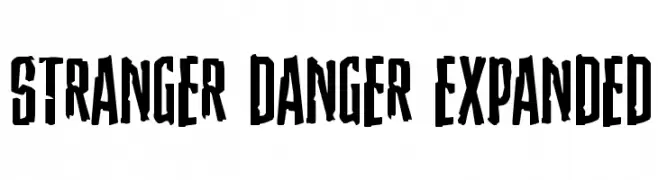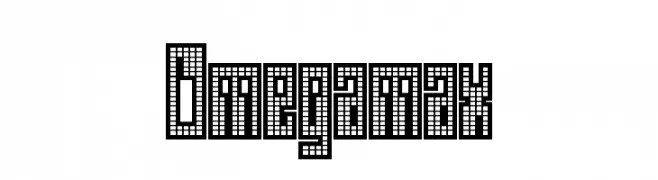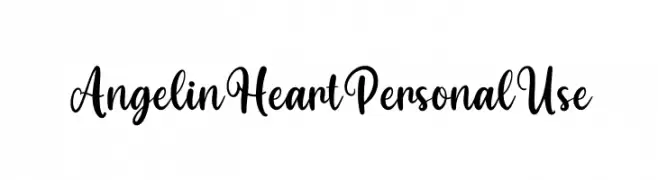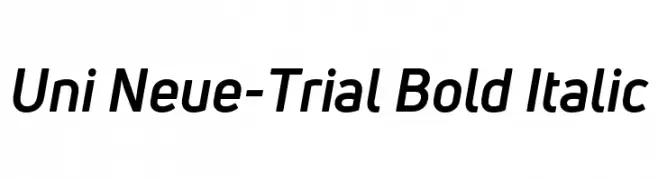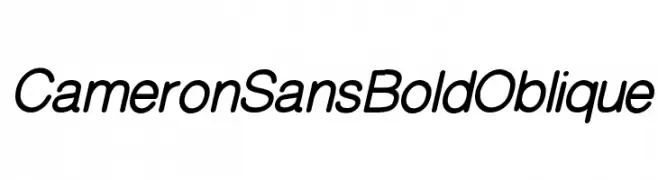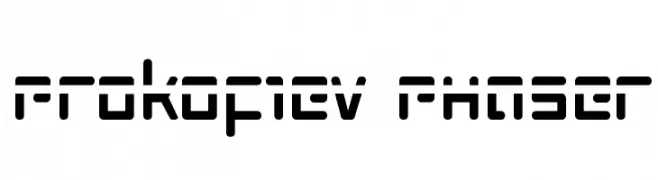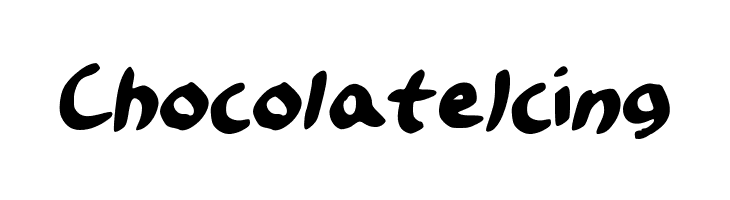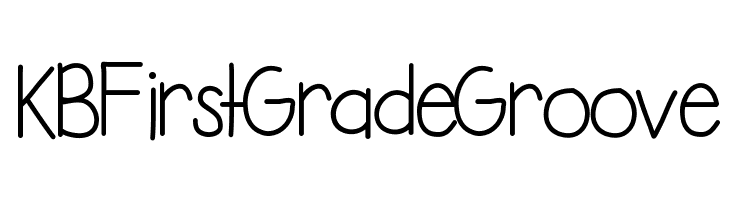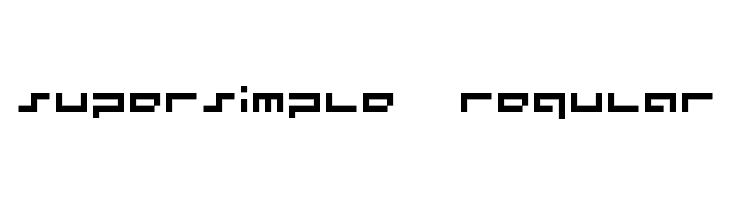
A bold, modern geometric font with rounded edges and consistent thickness.
A bold, angular font with a distressed, edgy appearance.
A pixelated, grid-based font with a retro digital aesthetic.
A bold, angular font with a modern, dynamic style.
A cursive, handwritten font with elegant curves and a bold presence.
A bold, condensed font with a modern, geometric style.
A modern, bold, and italic font with medium contrast and slightly condensed characters.
A bold and oblique sans-serif font with a modern and dynamic style.
A futuristic, geometric font with a blocky, modular design.